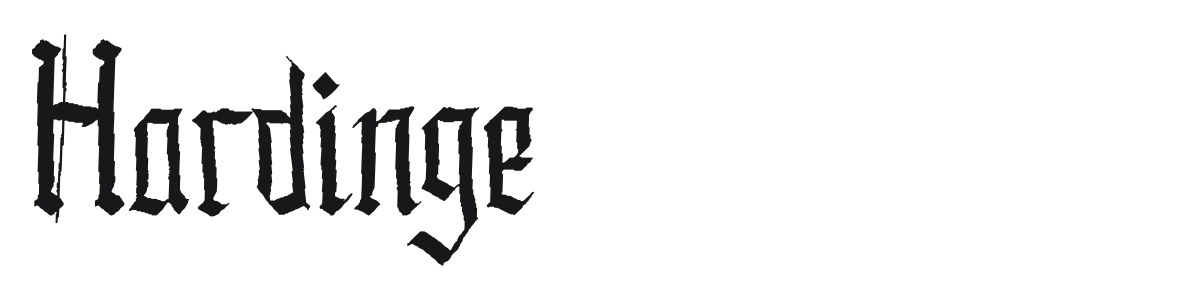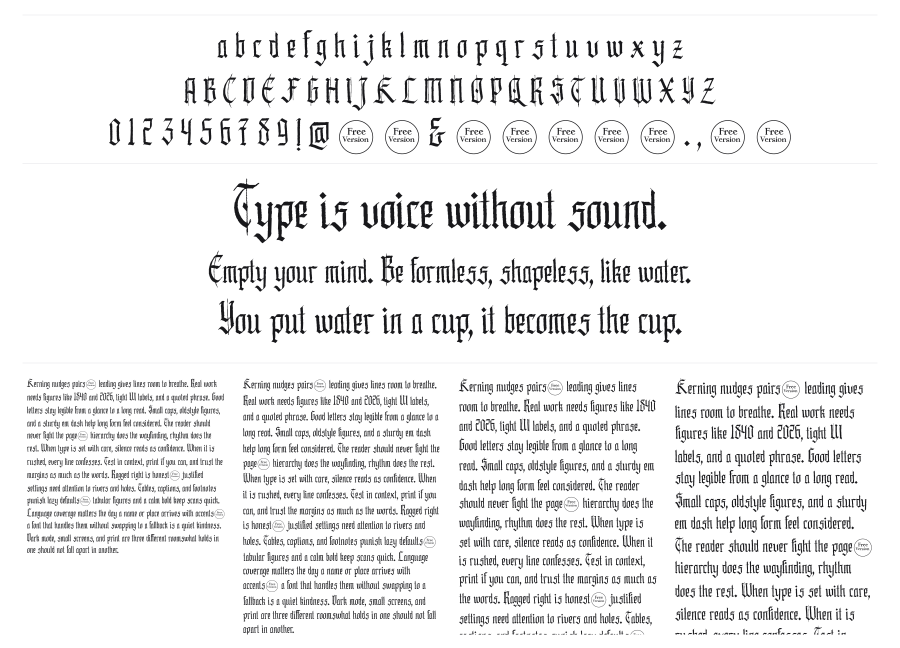
Hardinge
Hardinge is a bold textura blackletter drawn in the classic medieval broken-pen tradition, with sharp diamond terminals and high stroke contrast. The dense, angular rhythm of the characters gives it a commanding presence whether on a logo, poster, or printed apparel. It carries genuine heritage weight without feeling like a novelty.